A Bold Font Generator is a text conversion tool that transforms standard input into Unicode bold characters using typography mapping systems. Je converts normal letters into bold symbols through Unicode blocks such as Mathematical Bold. This process supports text styling, copy paste formatting, and social media font generation.
Bold Font Generator tools operate across platforms like Instagram, TikTok, and X (Twitter) to enhance visual hierarchy in captions and bios. Je uses Unicode characters instead of ASCII fonts to maintain web compatibility, enabling bold letters, text converter functions, and SEO-friendly readable snippets for digital content formatting.
How Unicode Bold Text Generators Work
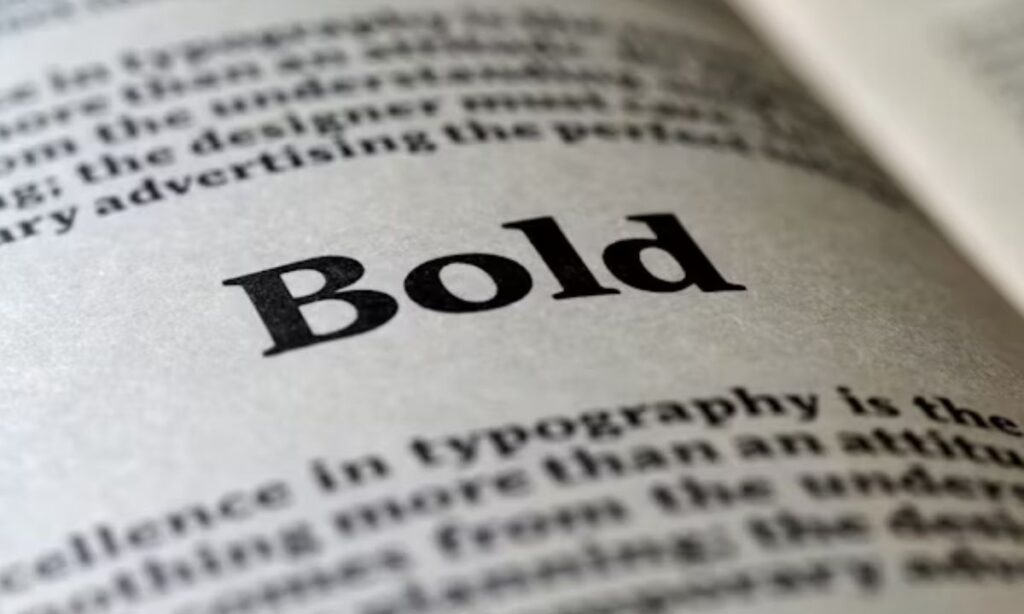
Unicode bold text generators work by mapping standard Latin characters to Unicode Mathematical Alphanumeric Symbols. The system assigns each input character a corresponding Unicode code point, such as U+1D400 for bold A. The generator transforms tokens into structured encoded glyph sequences.
These tools output transformed Unicode strings that browsers render through font substitution and glyph mapping. UTF-8 encoding preserves the characters across platforms. Rendering engines interpret code points and display bold-style glyphs, while compatibility depends on font support and Unicode implementation standards.
Strategic Applications for Selling Online
Bold typography applies in online selling to guide attention on landing pages, product descriptions, and call-to-action elements. It strengthens visual hierarchy and supports conversion rate optimization (CRO) by signaling priority keywords, pricing, and value propositions within the sales funnel.
E-commerce platforms use bold text in headlines, benefit statements, and checkout prompts. This improves engagement rate and click-through rate (CTR) by improving readability and reducing cognitive load in digital marketing interfaces and product detail pages.
Decision Framework: Choosing the Right Bold Styles for Your Offer
Bold style selection depends on conversion intent, audience segmentation, and message hierarchy. Marketers apply font weight variation to emphasize pricing, urgency triggers, and value-driven NLP entities within landing page structures.
Decision frameworks integrate A/B testing, UX behavior data, and semantic SEO principles. Bold typography aligns with user intent signals and improves content scannability across mobile and desktop interfaces.
Implementation Playbook: From Generator to High-Converting Copy
Implementation starts with a bold text generator or design system that outputs structured typography rules. These rules define emphasis points across headlines, subheadings, and CTA elements in conversion-focused copywriting.
Copy teams integrate bold elements into CMS platforms, product pages, and email marketing flows. This supports CRO workflows, ensures consistent branding, and strengthens semantic alignment with search engine interpretation.
Measuring & Optimizing Impact on Sales Metrics
Measurement uses marketing analytics tools such as Google Analytics, heatmaps, and click tracking. Bold typography impact is evaluated through engagement rate, CTR, and conversion path analysis.
Optimization relies on iterative testing of bold placements in headlines and CTAs. Data-driven adjustments improve user interaction signals across the sales funnel and refine message clarity.
KPIs: Engagement rate, click-through, conversion lift from bolded elements.
KPIs track user interaction with bold text in digital assets. Engagement rate measures attention, CTR evaluates link performance, and conversion lift connects typography changes to sales outcomes.
These KPIs integrate with CRO dashboards and semantic SEO reporting systems. Marketers map bold elements to user behavior events within analytics platforms for performance attribution.
Simple analytics setup (UTM tracking for styled links).
UTM tracking applies parameters to bolded call-to-action links to identify traffic sources. This enables attribution of conversions to specific styled elements in campaigns and landing pages.
Analytics setups use Google Analytics and campaign URLs with UTM tags. This connects bold typography interactions with measurable funnel performance and marketing channel effectiveness.
Risks, Best Practices & Compliance
Risks include overuse of bold text, which reduces readability and weakens visual hierarchy. Best practices maintain selective emphasis on high-intent keywords and CTA elements only.
Compliance ensures accessibility standards such as WCAG are met. Screen readers and UX systems interpret emphasis correctly, maintaining inclusive digital marketing and semantic clarity.
2026 Trends in Bold Typography for Marketers
Bold typography trends in 2026 focus on adaptive font systems, AI-generated layout optimization, and context-aware emphasis. These systems adjust bold weight based on user intent signals.